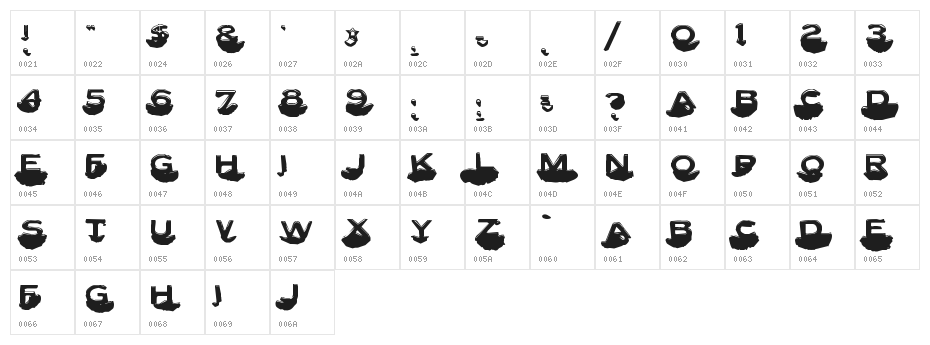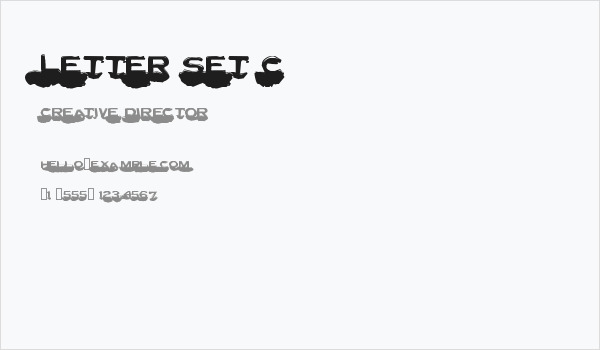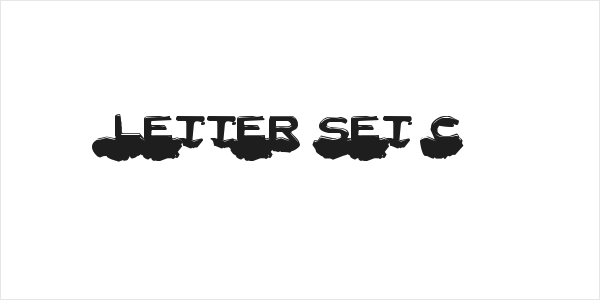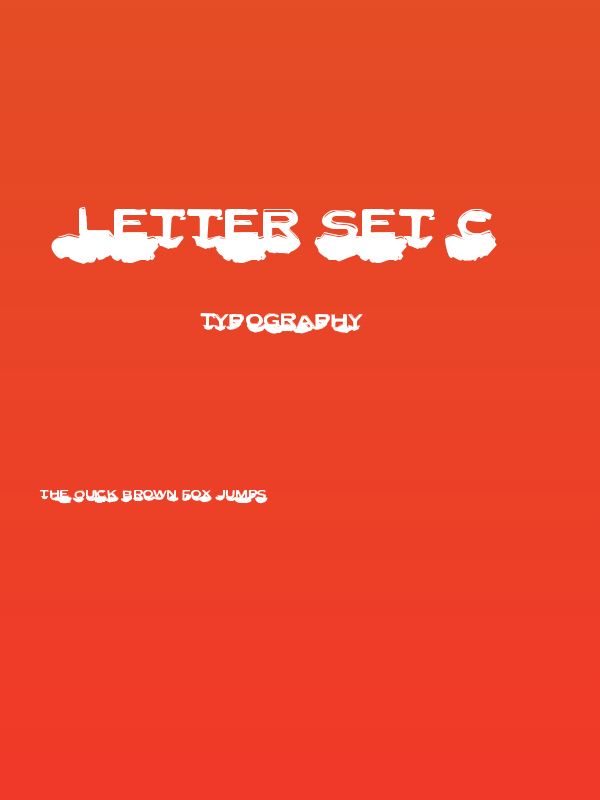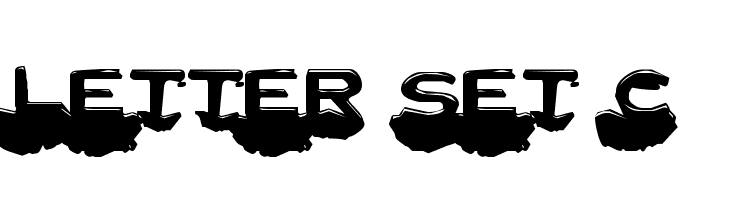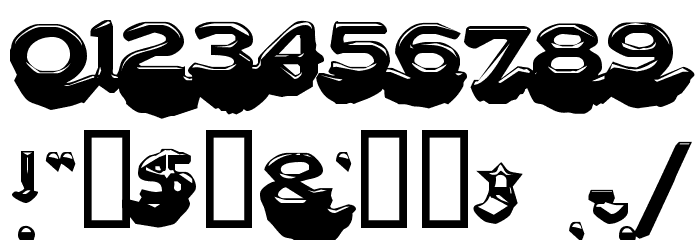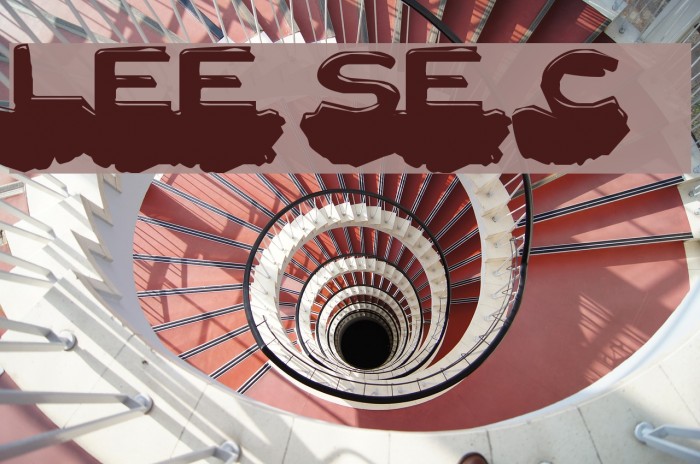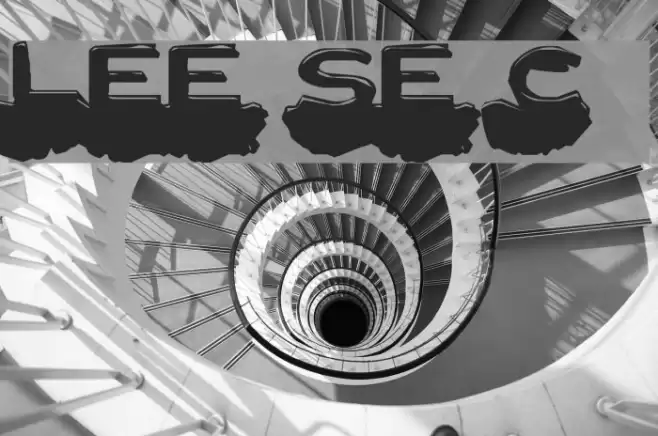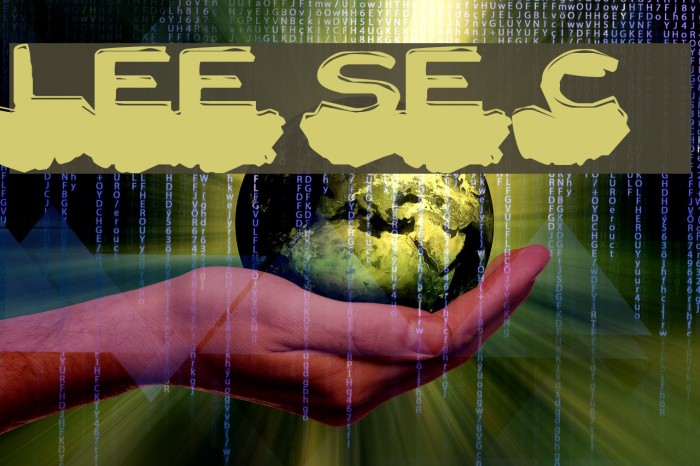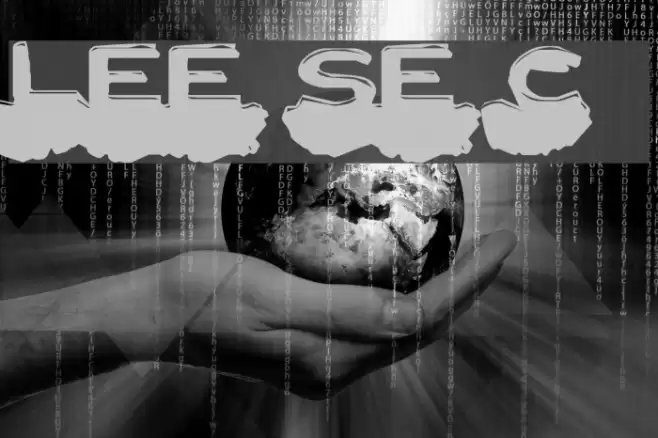
Letter Set C Font
Letter Set C Description
This font features a bold, three-dimensional design with a shadow effect that gives it a striking and dynamic appearance. The uppercase and lowercase letters are consistent in style, with a strong emphasis on geometric shapes and clean lines. The numbers and special characters maintain the same boldness and shadowed effect, ensuring uniformity across all characters. This font's unique style makes it stand out, with its thick strokes and shadowing creating a sense of depth and movement. The overall design is modern and eye-catching, suitable for projects that require a bold statement.
| Proposed Projects | Ideal for posters, headlines, logos, and any design requiring a bold, impactful font. |